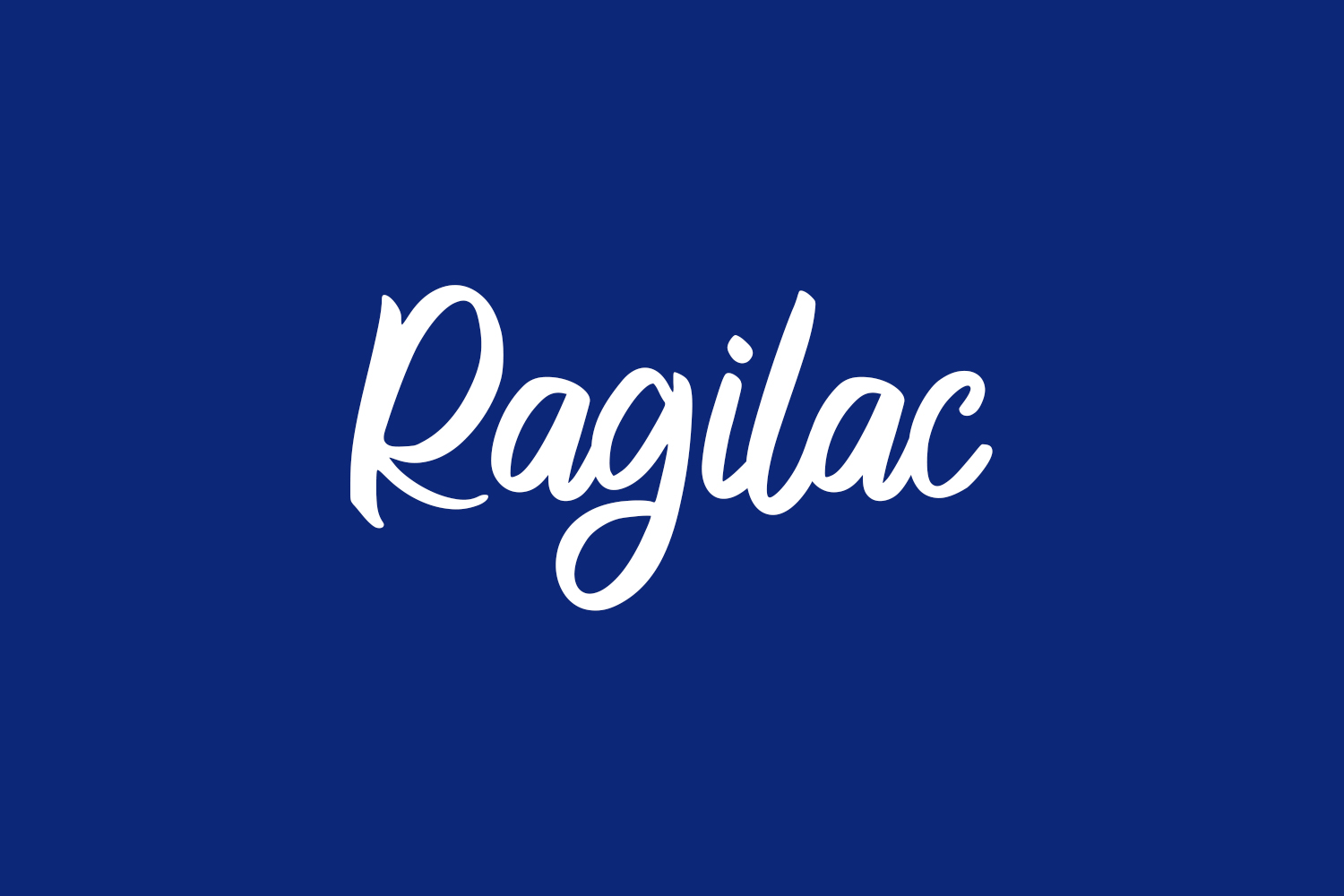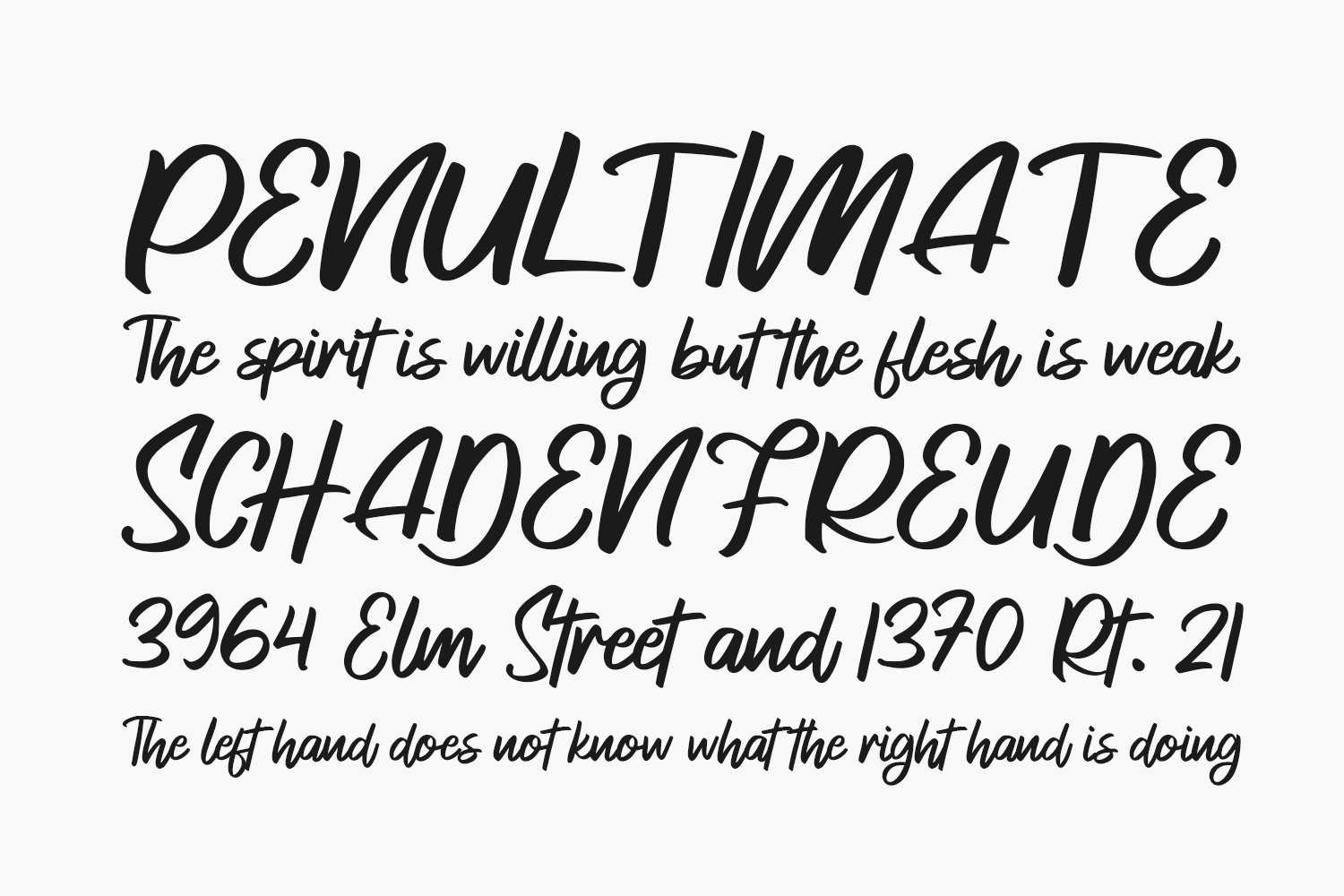
Ragilac Free Font is an elegant script font with a contemporary atmosphere and impeccable form, inspired by timeless classic calligraphy. Not too thin and not too thick, balanced and varied, this font was designed to enhance the beauty of your projects. Ragilac Free Font was designed by Riki and is free for personal use only. Please purchase the full version for commercial use.